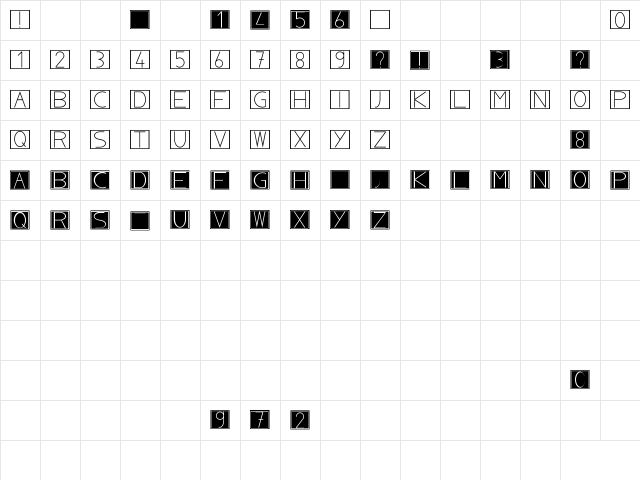
NoblaCS Regular
| Designer | Claude Soulayrac |
Design Context for NoblaCS Typeface
NoblaCS takes a measured approach to typography — its balanced proportions and neutral character make it a reliable workhorse for both digital and print work.